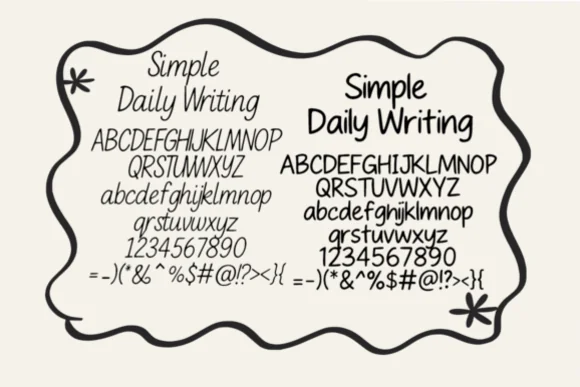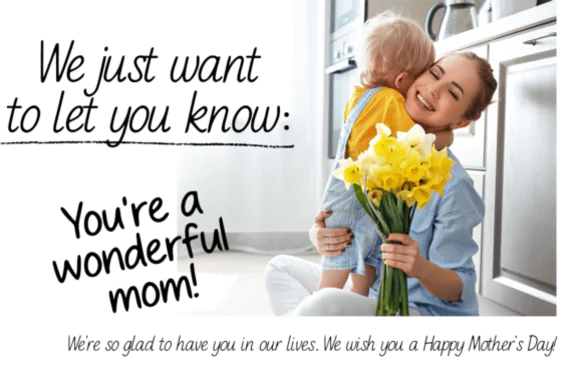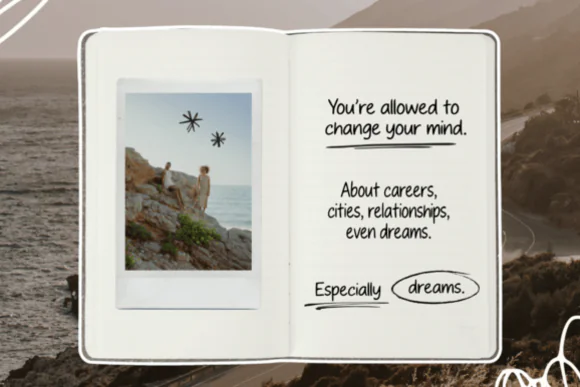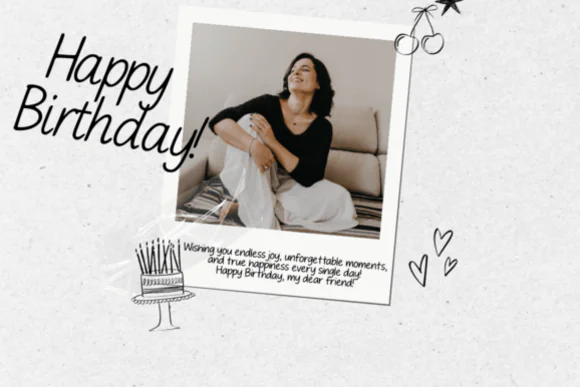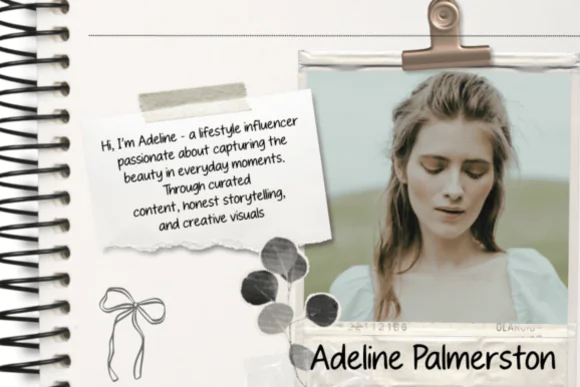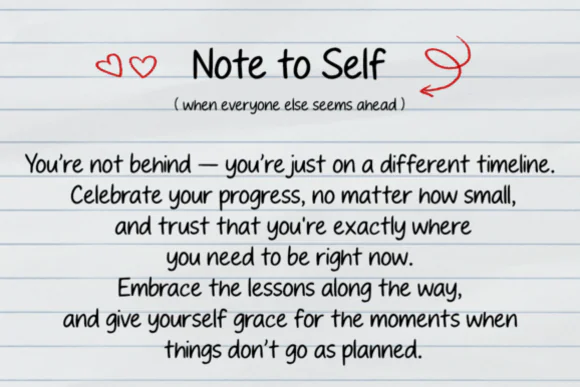
Simple Daily Writing Font Duo | Elegant Handwritten Regular & Italic Typeface for Journals, Branding, Quotes, Invitations, Social Media & Creative Designs
Bring warmth, simplicity, and natural handwritten charm to your designs with Simple Daily Writing Font, an effortlessly elegant handwritten font duo created for stylish and approachable creative projects. Inspired by the rhythm of everyday handwriting, this font gives your text a relaxed, personal, and modern feel while staying clean and easy to read.
Simple Daily Writing includes two harmonious styles: Regular and Italic, giving you more flexibility when creating beautiful typography combinations. The Regular style is perfect for clean handwritten titles, quotes, labels, and everyday design layouts, while the Italic style adds a soft, graceful touch for accents, signatures, captions, and elegant details.
This font works beautifully for journaling pages, digital planners, social media graphics, invitations, branding projects, quote prints, greeting cards, product packaging, stickers, labels, blog graphics, and handmade-style designs. Whether you are creating a cozy printable, a personal brand identity, or a relaxed lifestyle graphic, Simple Daily Writing adds a welcoming handwritten atmosphere to your work.
• Journaling pages
• Digital planners
• Quote designs
• Social media posts
• Invitations
• Greeting cards
• Branding projects
• Signature-style logos
• Product packaging
• Stickers and labels
• Blog graphics
• Printable wall art
• Handmade business designs
• Lifestyle designs
• Daily writing-inspired artwork
Elegant, simple, handwritten, warm, natural, smooth, relaxed, modern, welcoming, laid-back, stylish, clean, legible, personal, and contemporary.